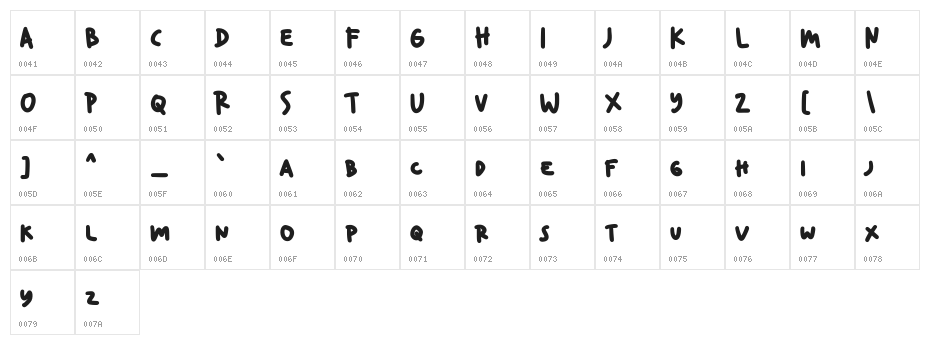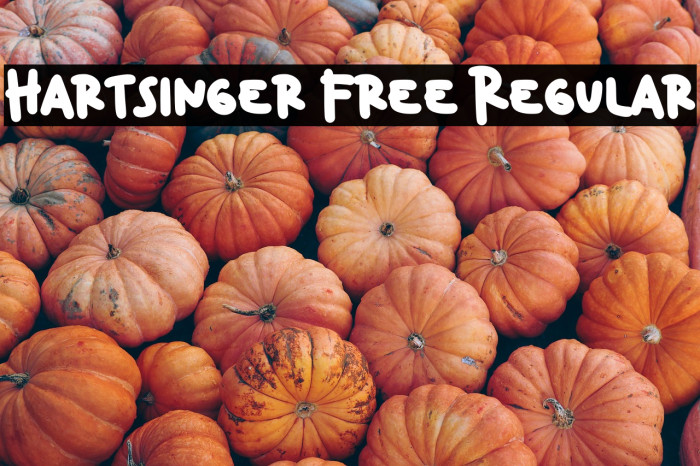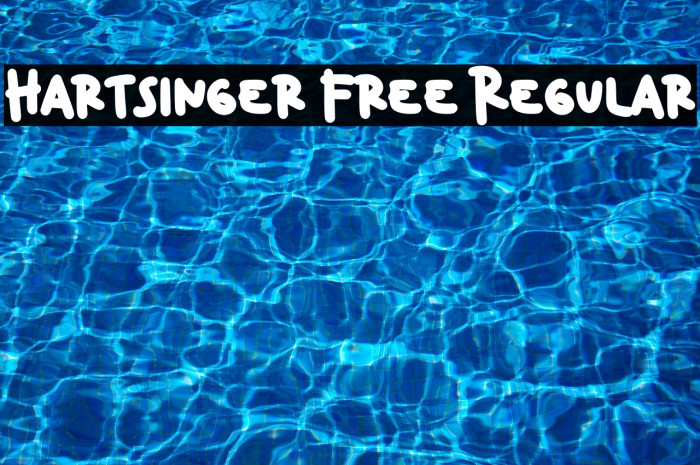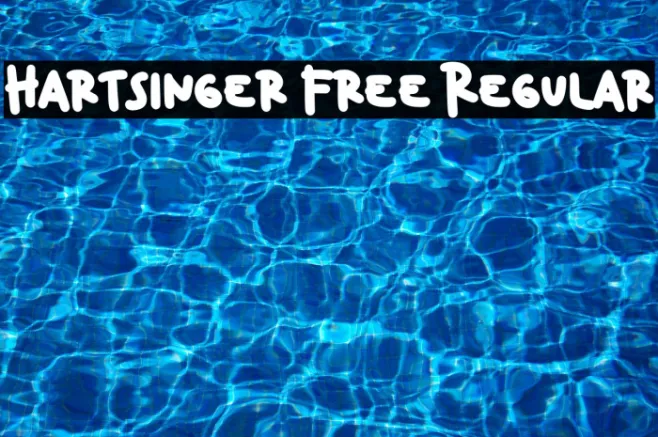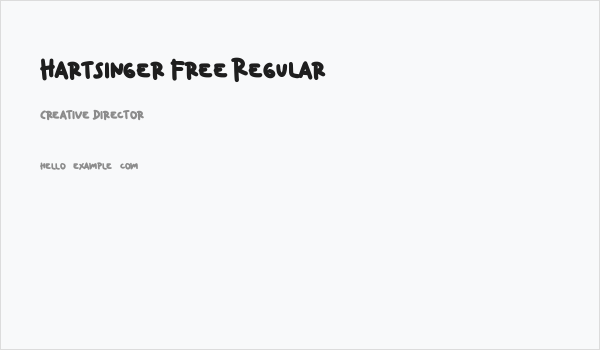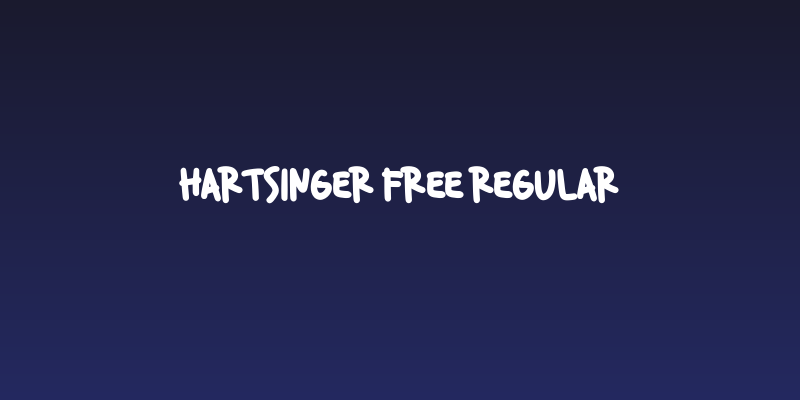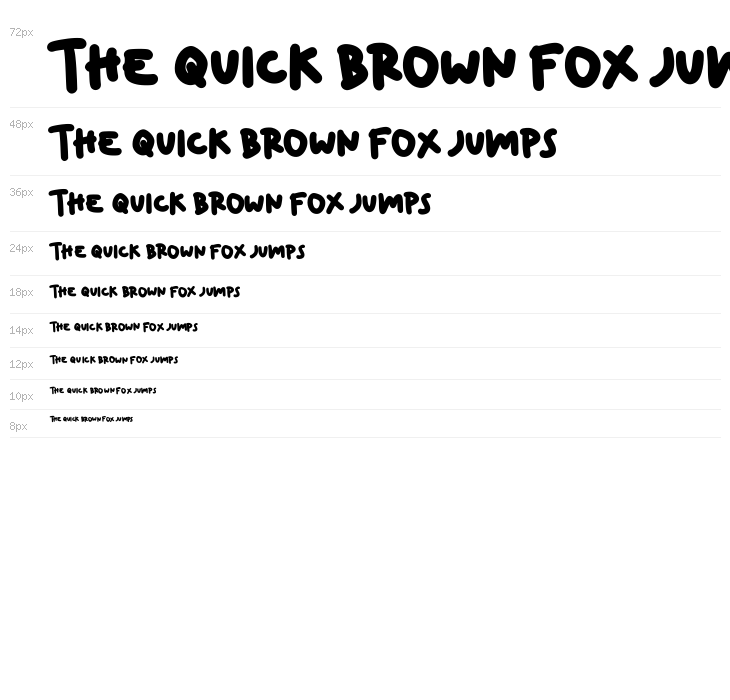
Hartsinger Free Regular Font
This font exudes a playful and energetic vibe, characterized by its bold and rounded letterforms. The strokes are thick and consistent, giving it a strong presence on the page. Each character is slightly irregular, adding a hand-drawn feel that enhances its informal and friendly appearance. The uppercase and lowercase letters maintain a uniform style, ensuring readability while still conveying a sense of fun. The font's unique style makes it ideal for projects that require a touch of whimsy and creativity.
A bold, playful font with rounded, hand-drawn letterforms.
- Proposed Projects: Ideal for children's books, playful branding, casual invitations, and creative posters.
- Category: Handwritten
- Overall Style: Playful